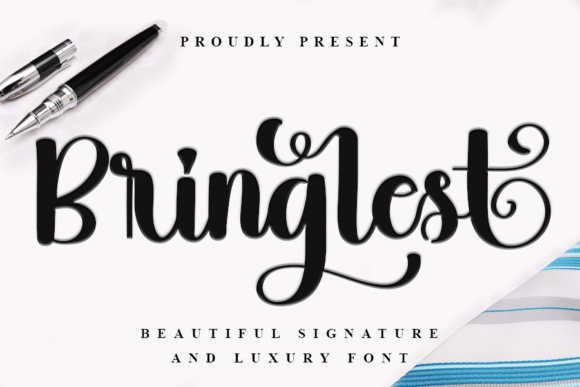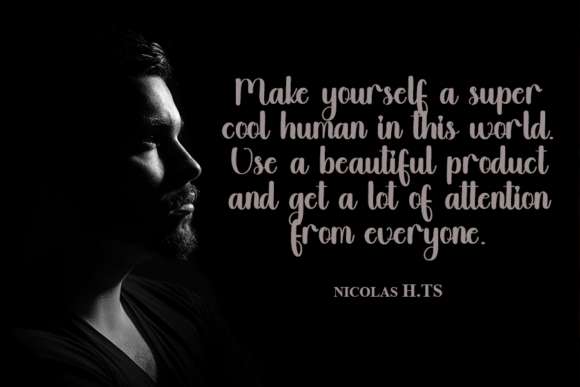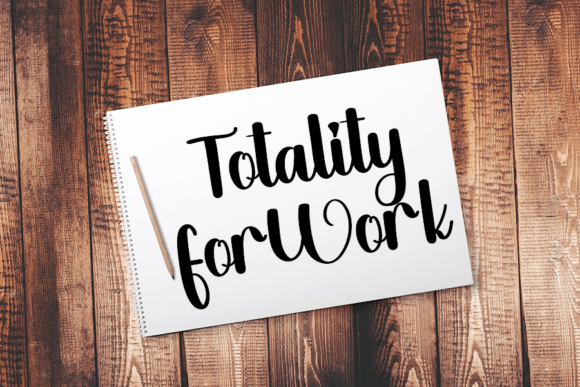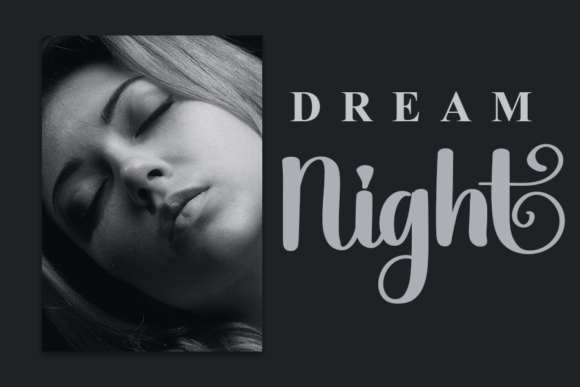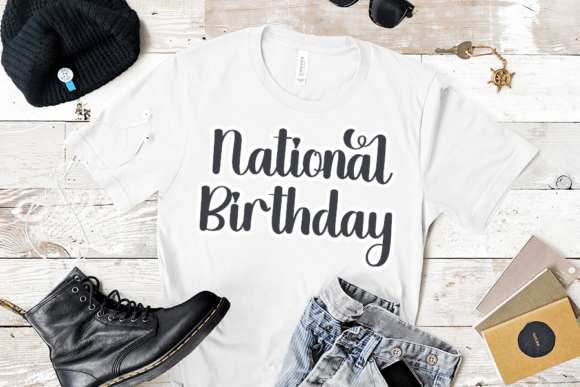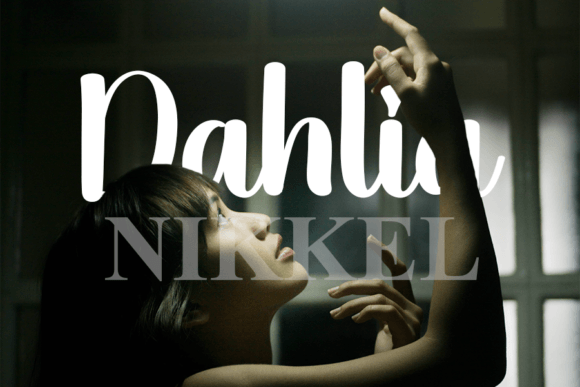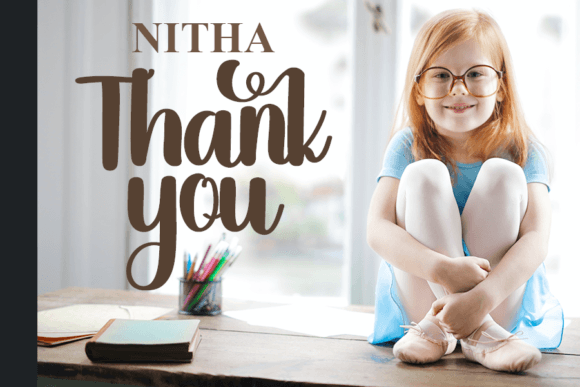
Bringlest Font
Bringlest is a trendy handwritten font that exudes a contemporary atmosphere and impeccable form, drawing inspiration from timeless classic calligraphy. This font serves as a powerful tool for adding elegance and class to a wide variety of design projects.
The font’s trendy and contemporary style brings a sense of modern sophistication to your work. Whether you’re focused on branding, invitations, stationery, or any other design project, Bringlest effortlessly enhances your creations with its timeless and classy aesthetics.
Bringlest’s versatility allows it to seamlessly adapt to different design contexts and themes, making it an invaluable asset for designers and creators seeking to infuse their work with an air of elegance and style.
In summary, Bringlest is more than just a font; it’s a creative asset that brings a sense of contemporary elegance to your design endeavors. Its trendy handwritten design, inspired by classic calligraphy, combined with its adaptability, makes it a valuable addition to your font collection. Embrace Bringlest and watch as it elevates your creative projects with its modern and sophisticated typography.